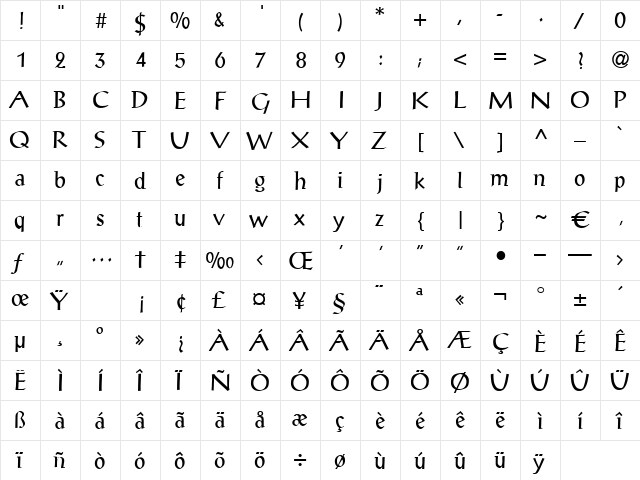
Memoria Regular Font Preview
Memoria Regular
Design Context for Memoria Typeface
Memoria is a composed and adaptable typeface that performs quietly and consistently across a wide range of design contexts.